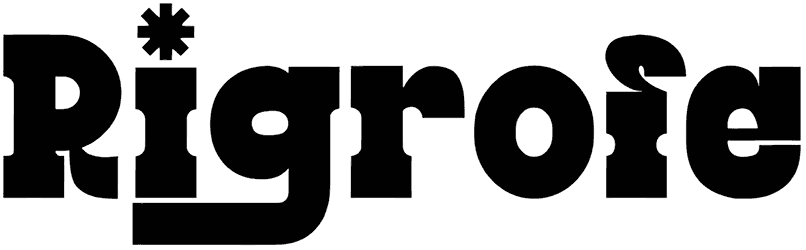
Rigrofe Font
You don’t understand what’s going on here either. Good, for a second, we thought it was just us. Just look at those bold letters with those unproportioned serifs that are not even properly placed, and then the swash in “g” and the snowflake on top of “i”? In a slab serif font? What’s up with that?
The mere paradox is enough to make sure Rigrofe ends up in your toolkit and is picked for your next modern sports equipment logos, and everything.